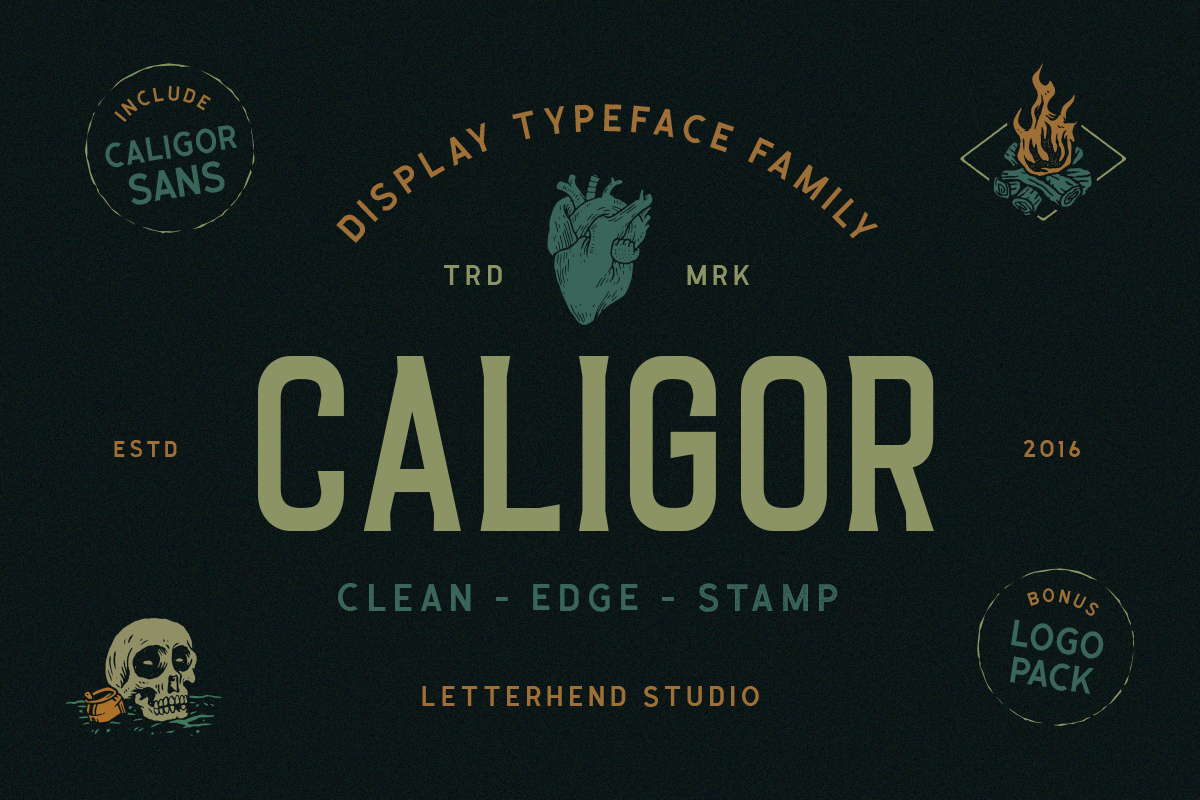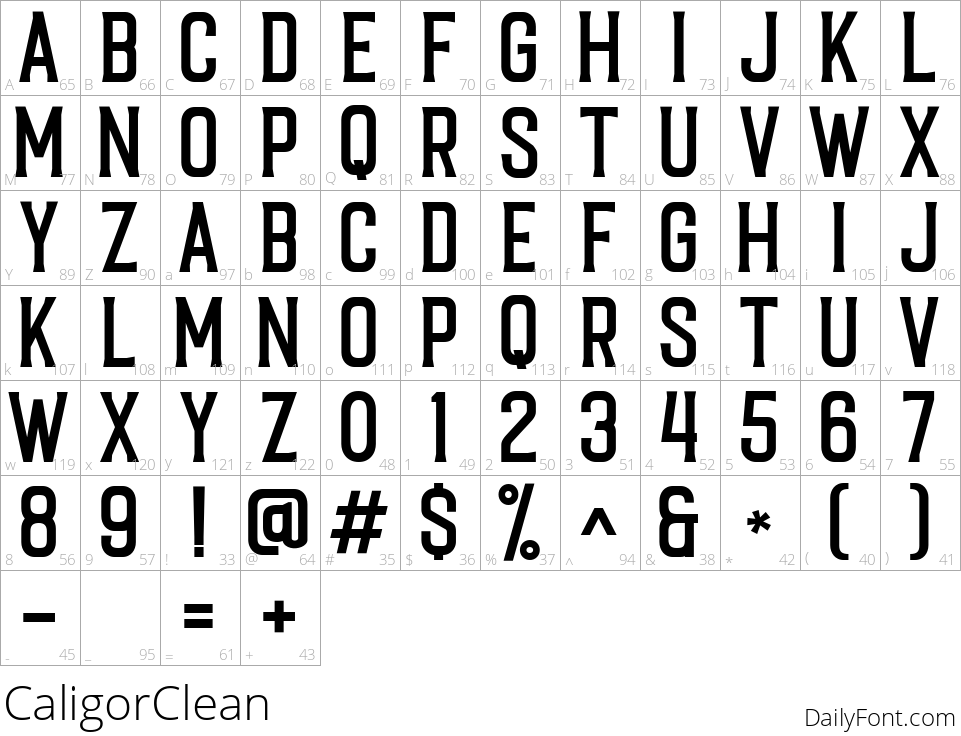
Caligor
Caligor is a striking Display Typeface Family designed to elevate your headlines and branding projects. Whether you're crafting a logotype, designing apparel, or creating stunning invitations, Caligor offers versatility and style. With a comprehensive set of uppercase and lowercase letters, punctuations, symbols, and numerals, this typeface ensures that all your typographic needs are met.
Not only does Caligor boast various stylistic sets and alternate characters, but it also features ligatures to enhance the fluidity of your text. Additionally, its multilingual support allows you to reach a broader audience without losing the elegance of your design. Fully PUA encoded, Caligor provides ease of use across various applications, making it a perfect choice for advertising, packaging, and any creative endeavor. Stand out from the crowd with Caligor, where creativity meets functionality in type design.